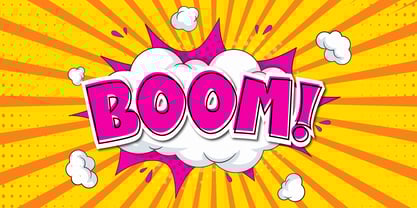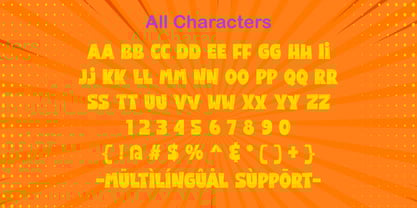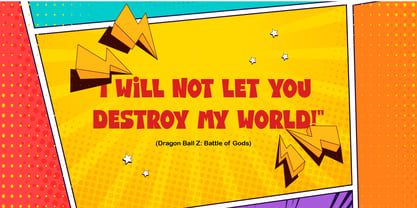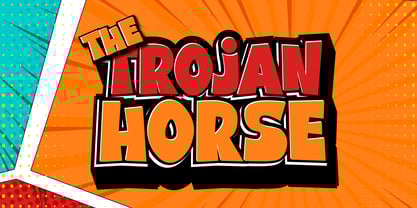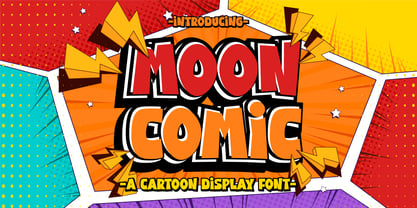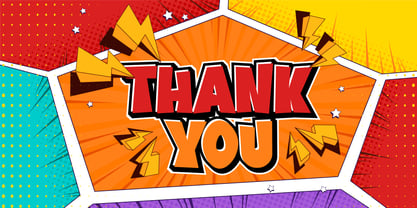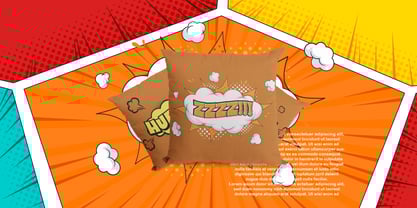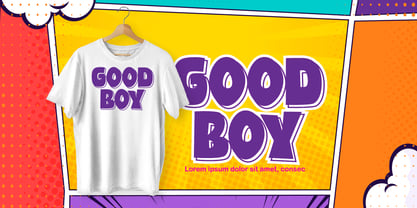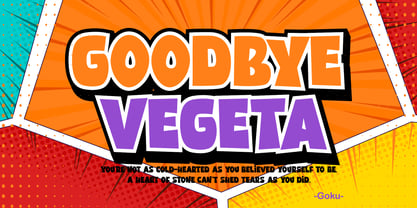
Moon Comic
by Patlot Digital Studio
The Moon Comic Font Family was designed by Gugun Gunawan and published by Patlot Digital Studio. Moon Comic contains 1 styles. More about this family
Moon Comic is a stunning cartoon-style display font. Its bold characters and eye-catching appearance will make any design creation stand out. Try it on your next creative project, and you’ll fall in love with the results! Moon Comic is perfect for humorous memes, standout comic book titles, superhero outfits, and social media quotes. Stand out with Moon Comic, a playful font that dares to be different.
Patlot Digital Studio was founded in 2022 and is managed by Gugun Gunawan. I love drawing letters. I want to continue developing my creativity and using my passion to provide greater benefits for myself and the design community. I founded Patlot Digital Studio to help designers choose their projects. I create handwritten fonts, script fonts, and display fonts. Now I pursue my new passion full-time from my home studio.